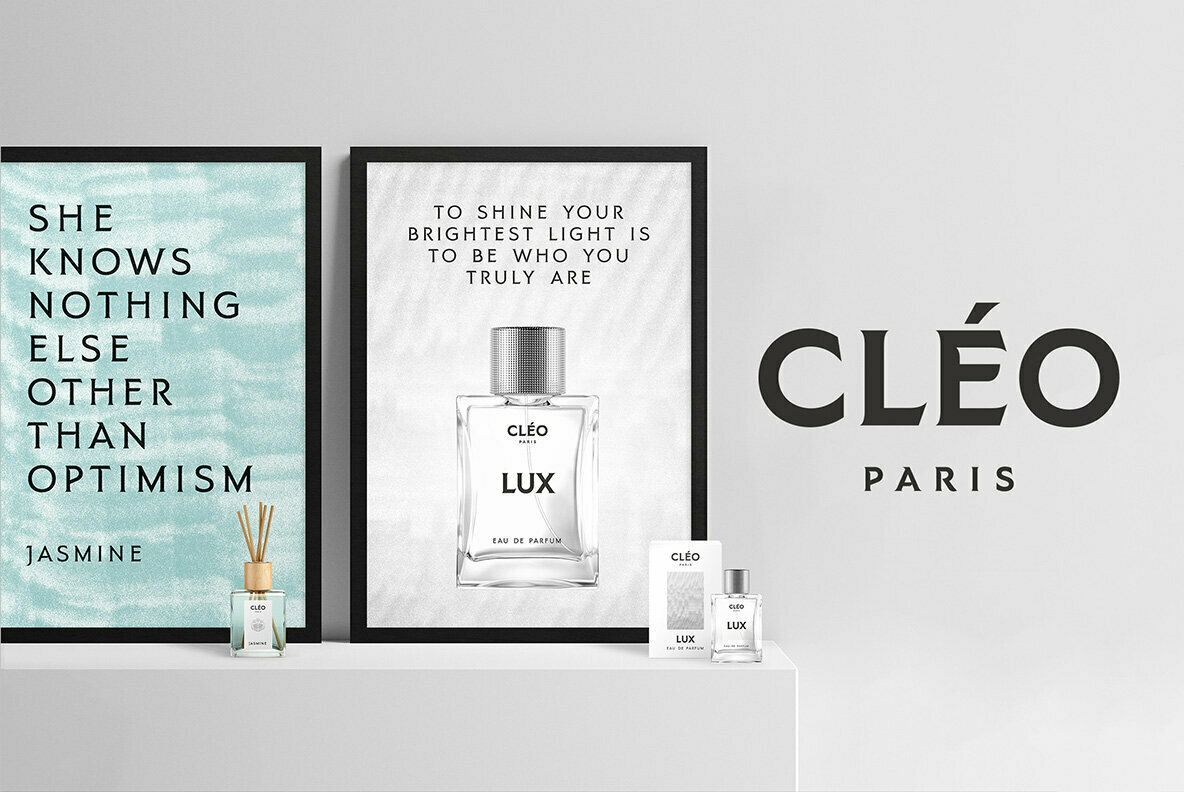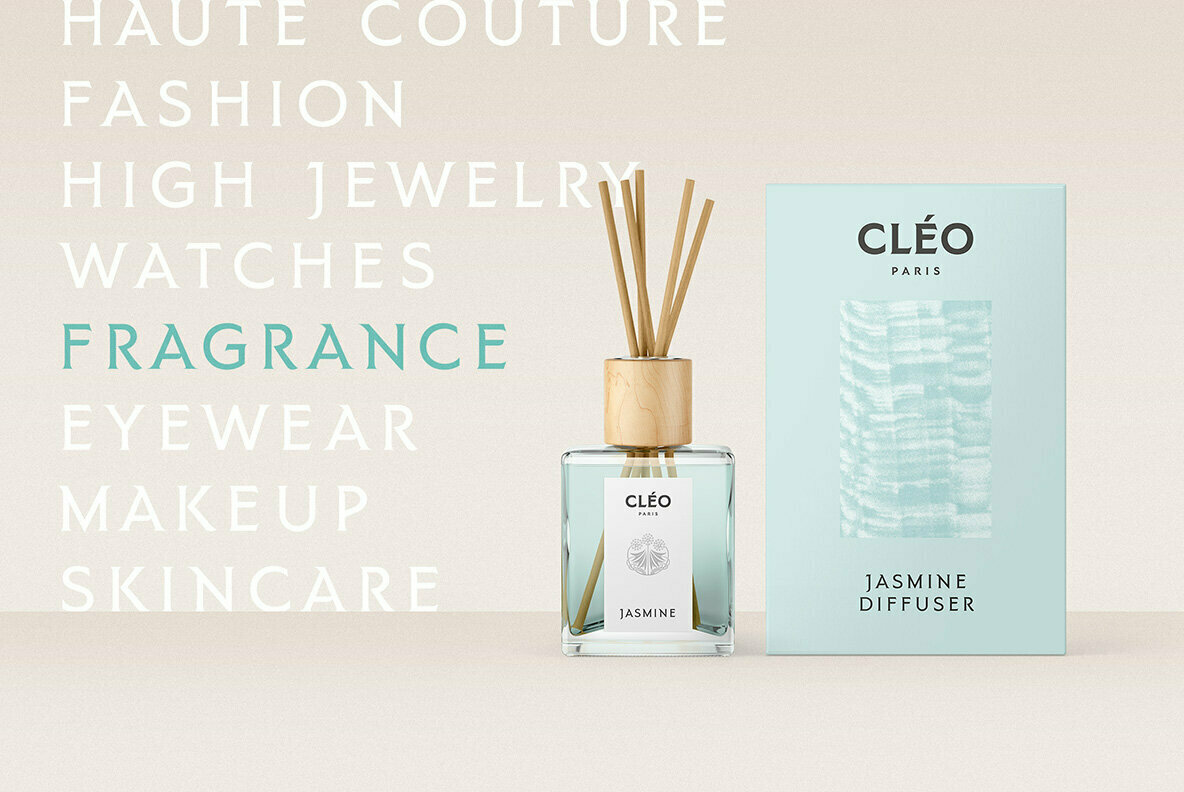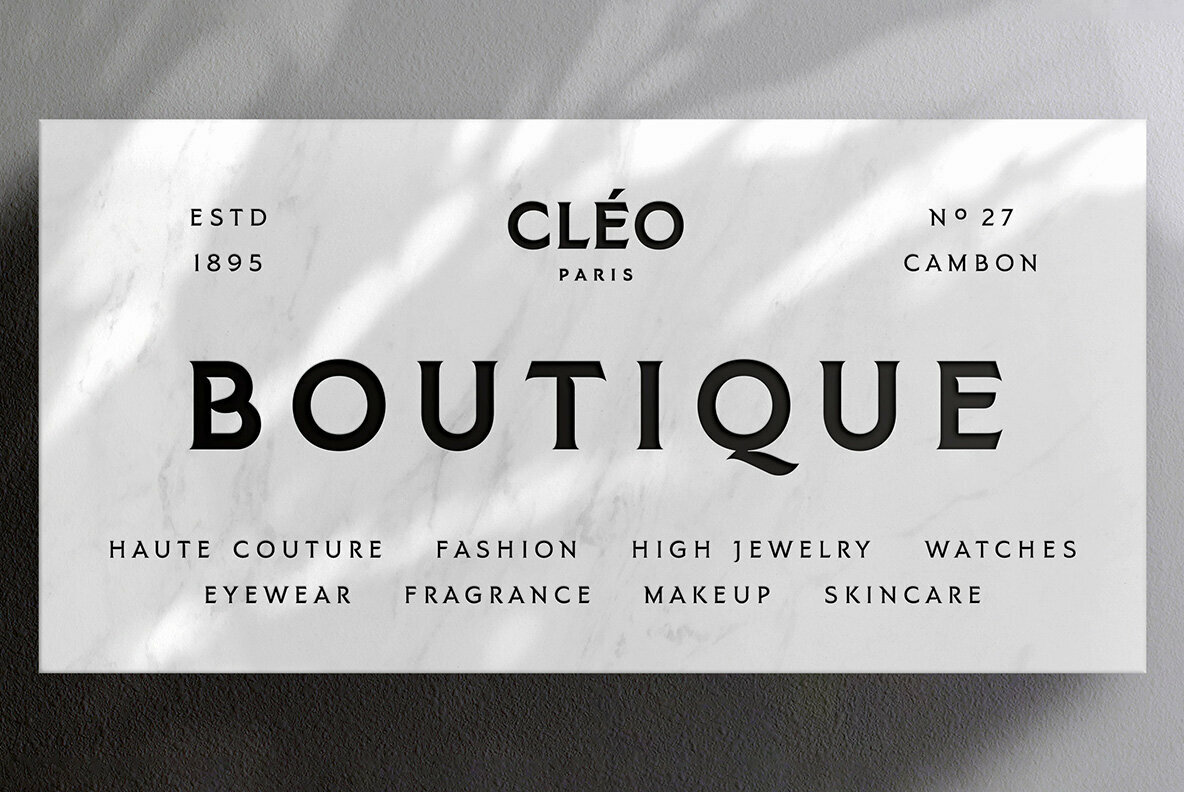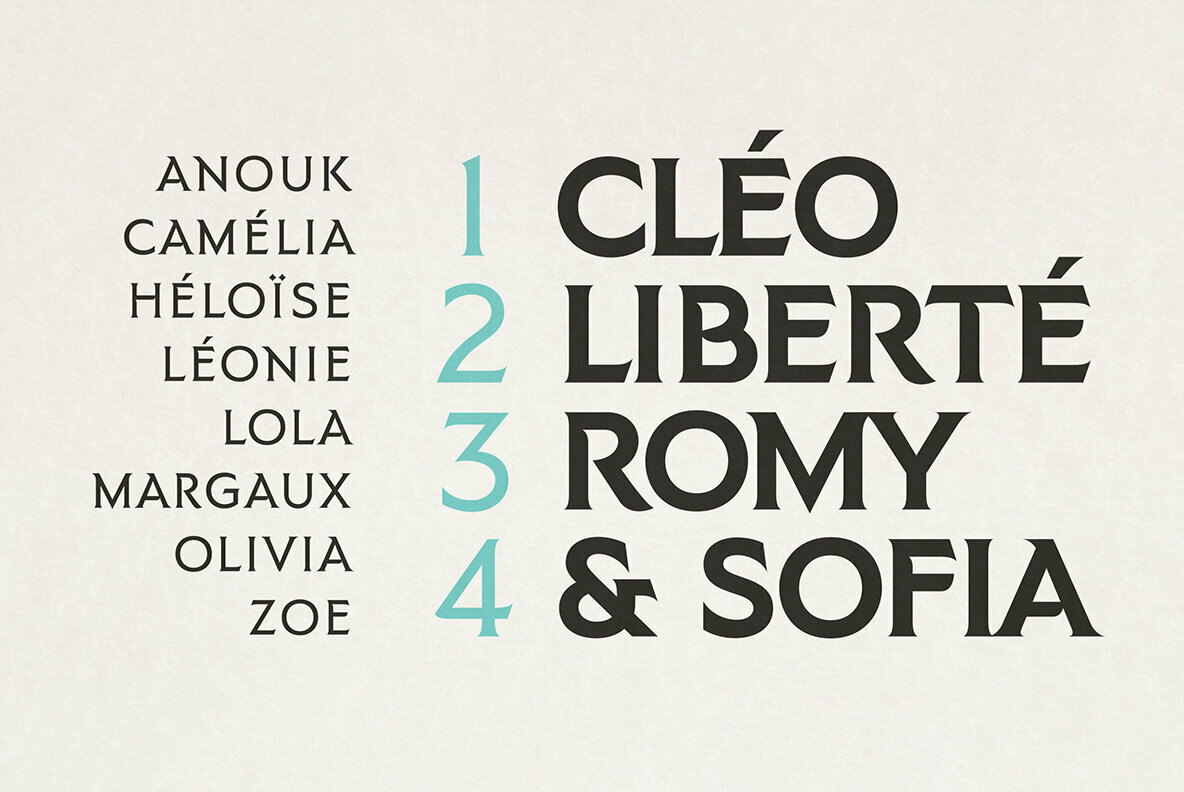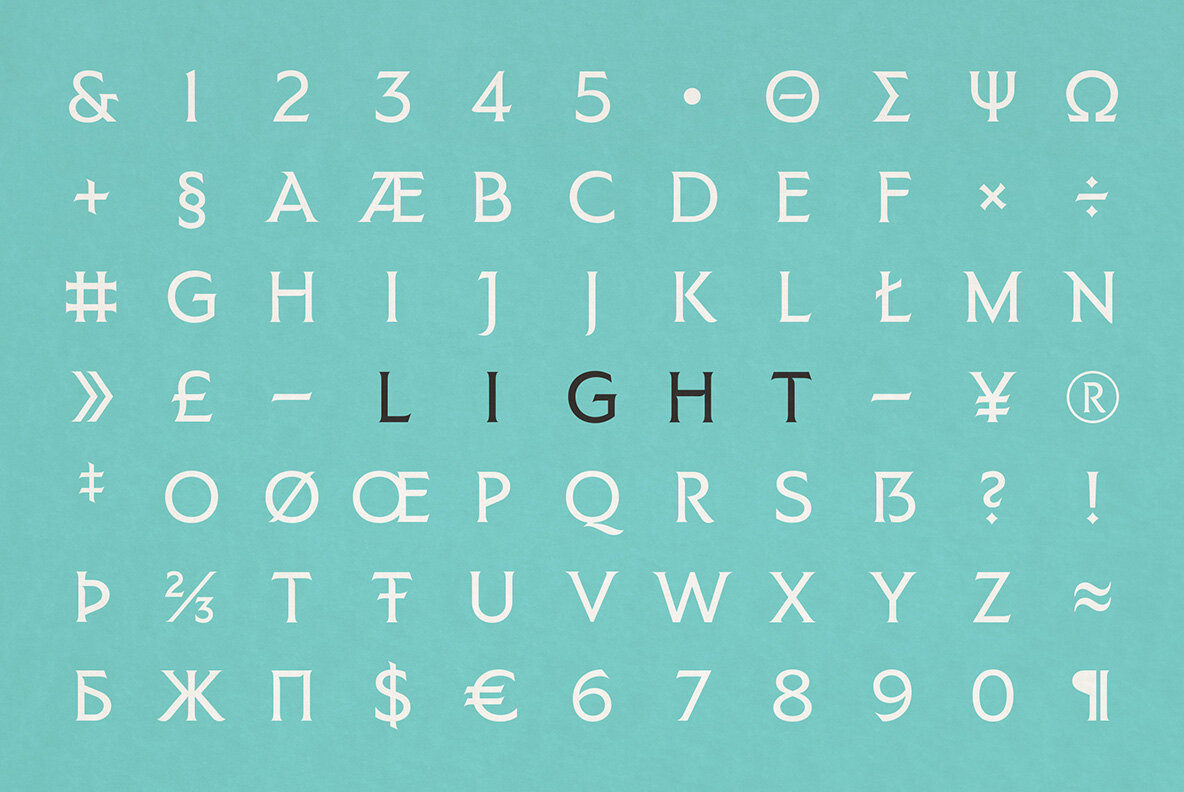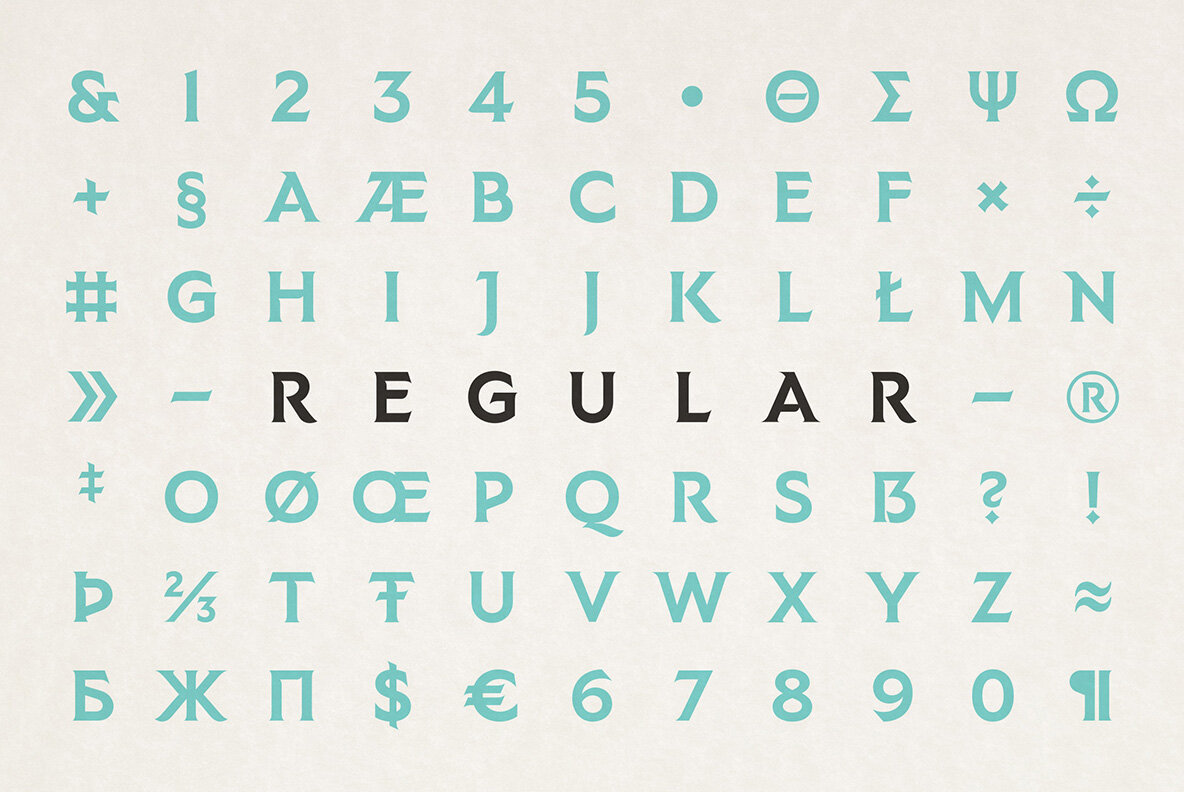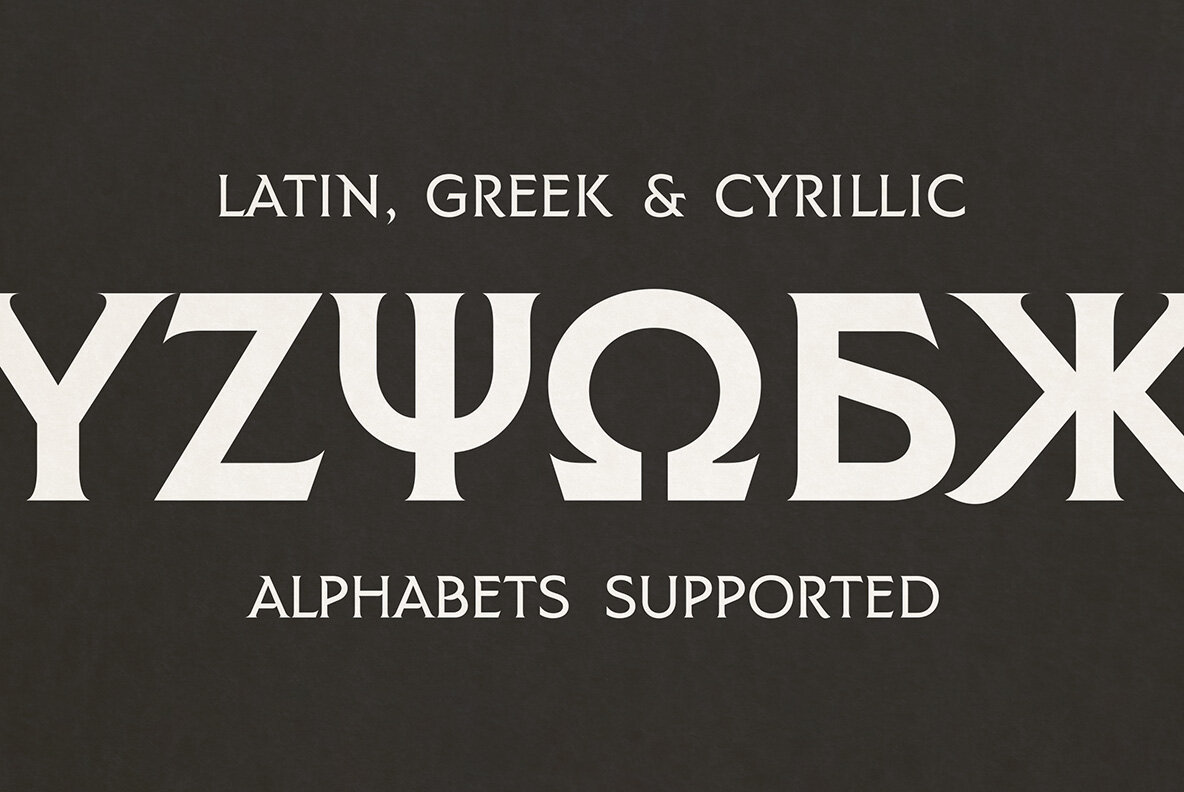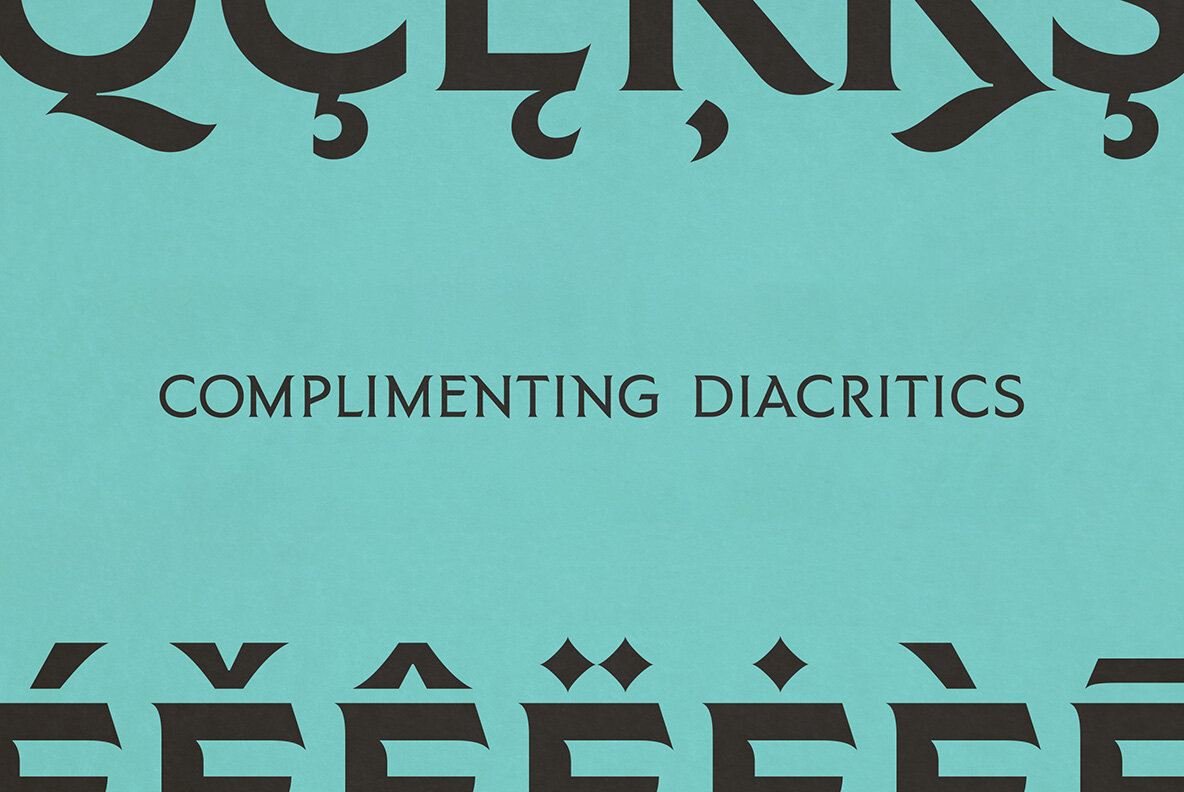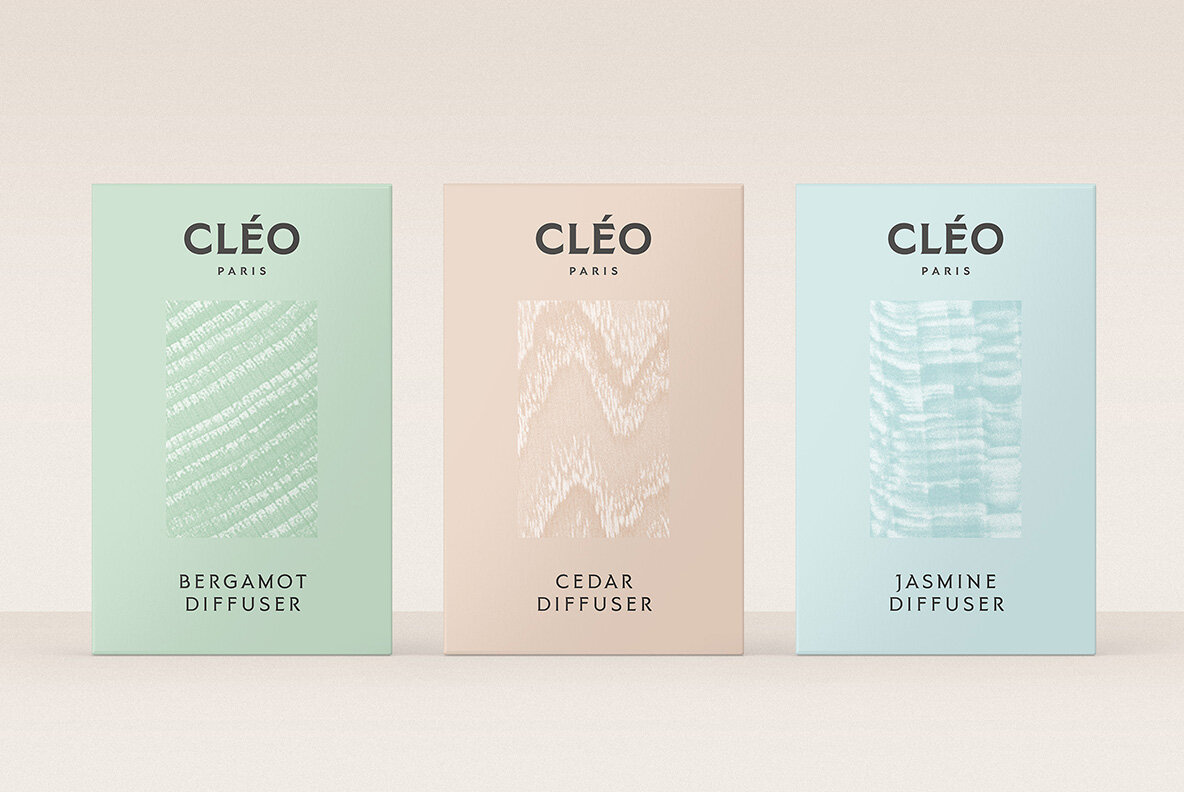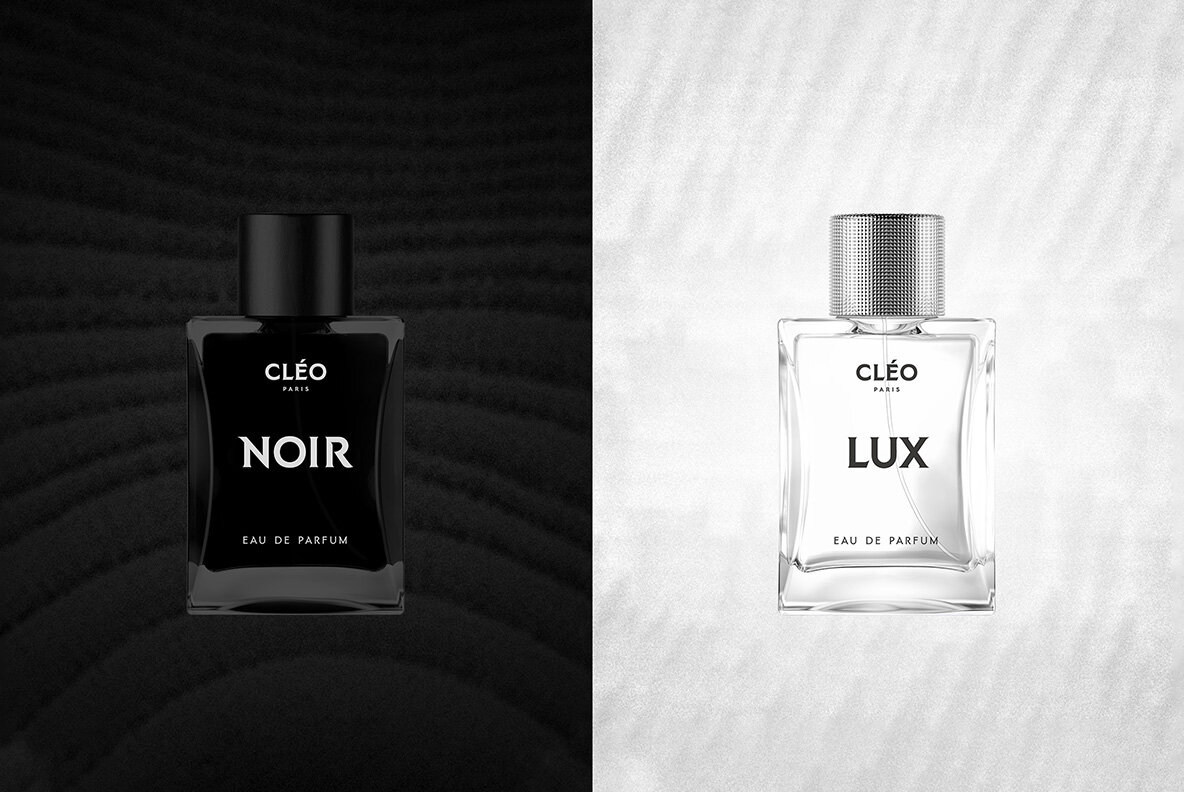
Caeli Font
A two-weight serif display typeface well-suited to Logo marks and titling. Caeli is inspired by the beauty, strength, and liberty of nature; plant life is honored with curves flowing from strong stems along with subtle references to Art Nouveau letter-shapes.